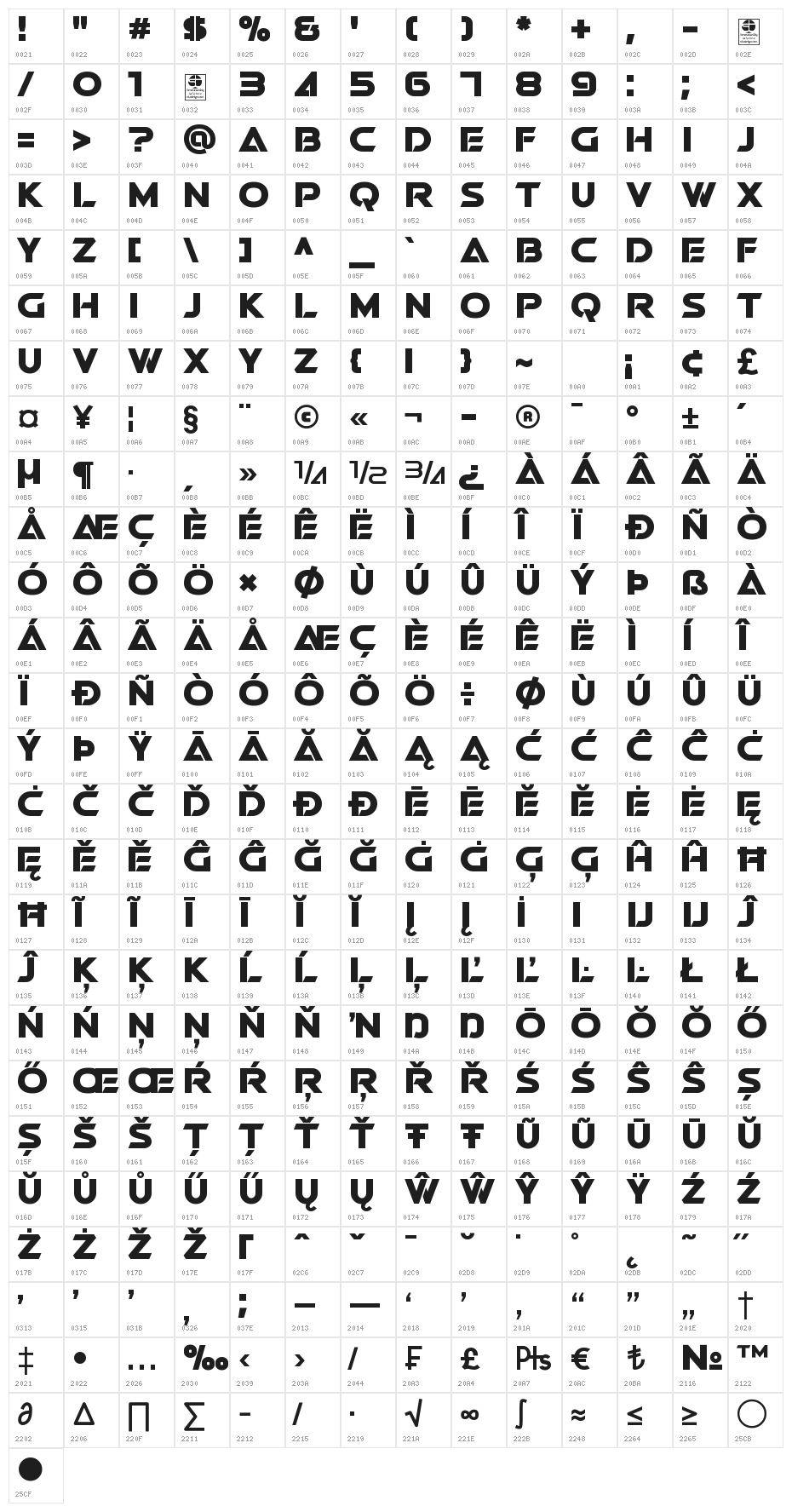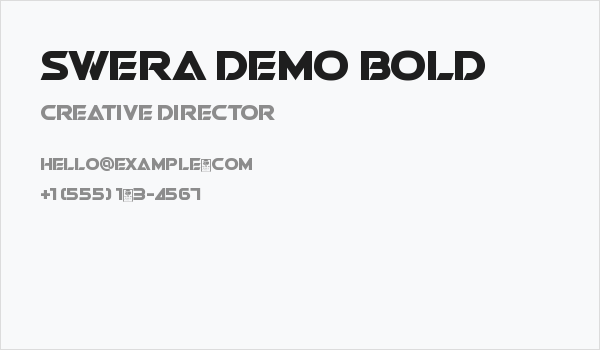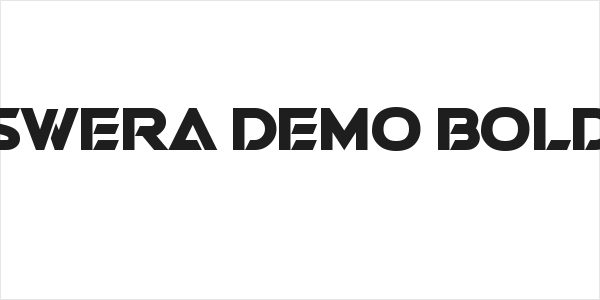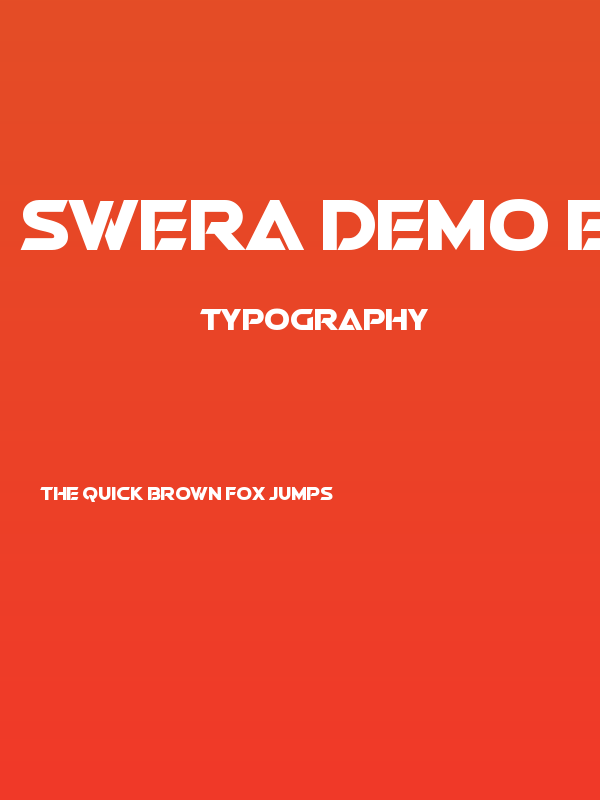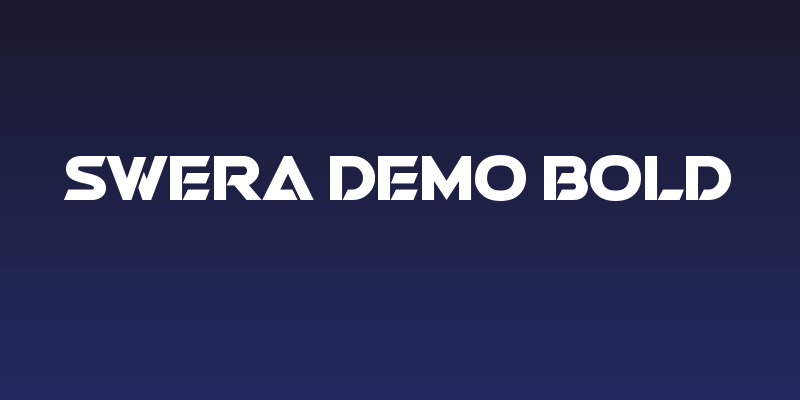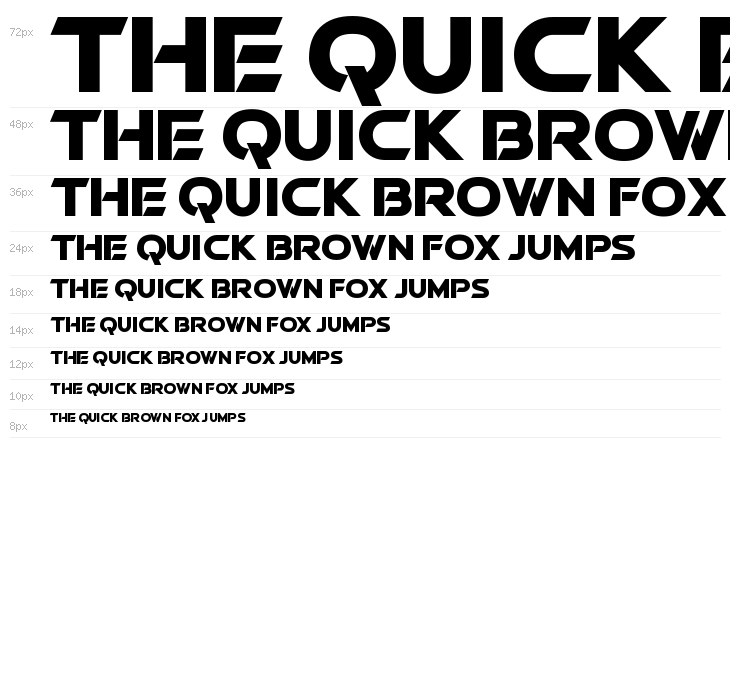
Swera Demo Bold Font
Swera Demo Bold Description
This font features a bold and geometric design, characterized by sharp angles and a futuristic aesthetic. The uppercase letters are distinct with a strong presence, while the lowercase letters maintain a consistent style that complements the uppercase. The numbers are equally bold, ensuring readability and impact. Special characters are designed with the same angular and modern approach, making them suitable for various design needs. Overall, the font conveys a sense of strength and modernity, ideal for projects that require a bold statement.
Proposed ProjectsIdeal for branding, logos, posters, and any project that requires a modern and impactful typeface.